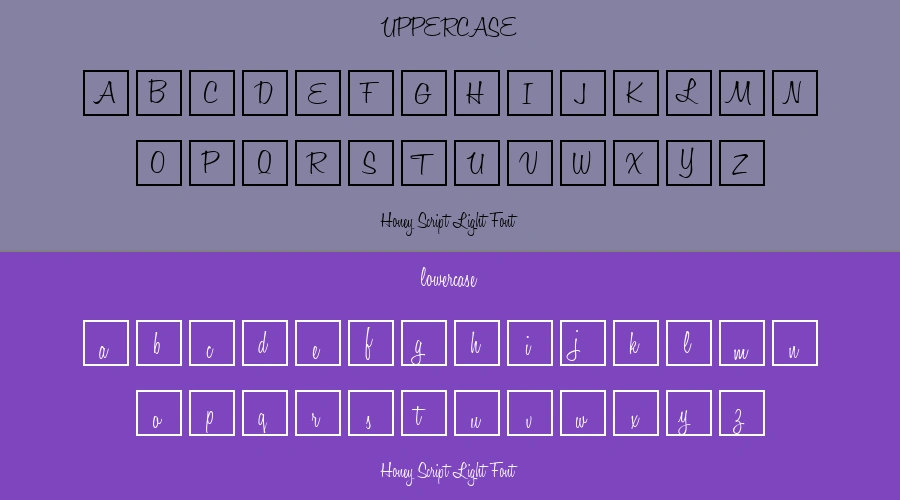
About Honey Script Light Font
Designed with precision, Honey Script Light Font merges subtle details with versatility in every character. This versatility makes it particularly effective for marketing materials, where memorability and visual appeal directly impact communication quality. Each letterform demonstrates meticulous craftsmanship.
Technical excellence shines through elements like expressive energy and logotype support, enhancing typographic versatility. In hero imagery settings, Honey Script Light Font proves its worth through superior hinting quality. The thoughtful execution of ascender height and market position ensures professional results.